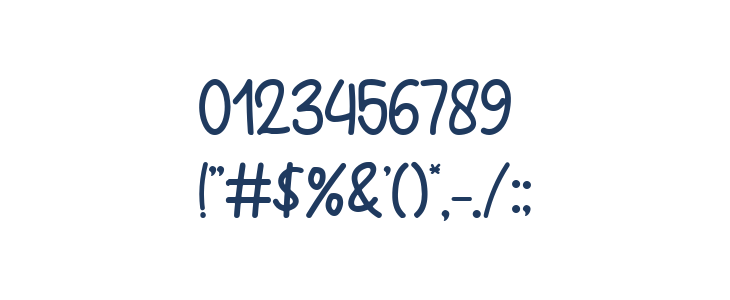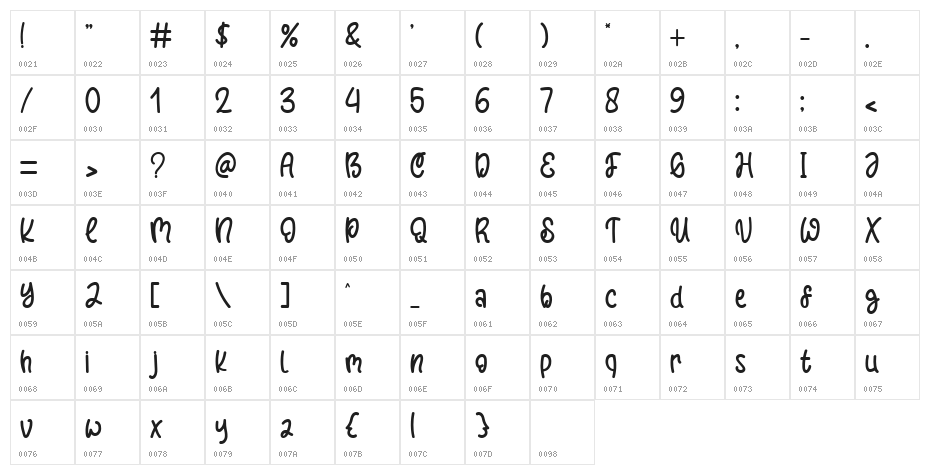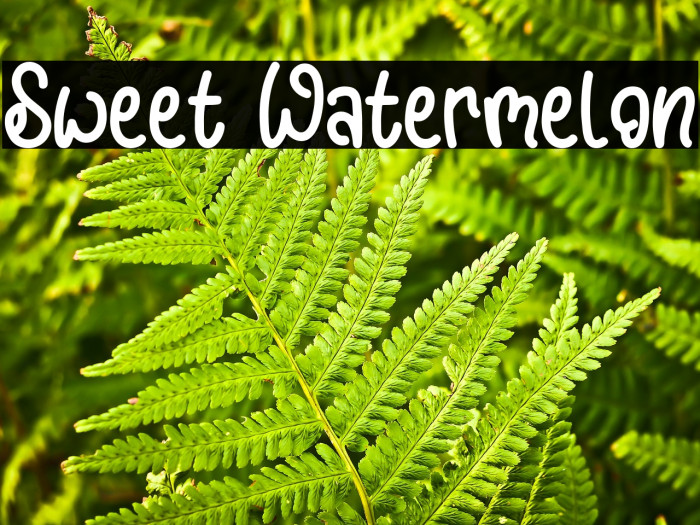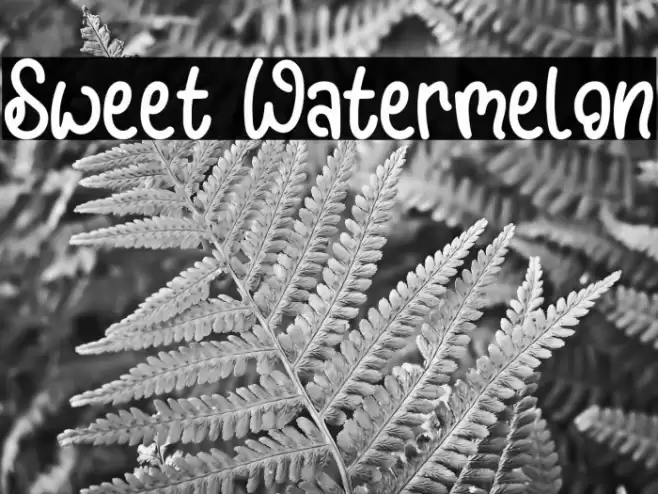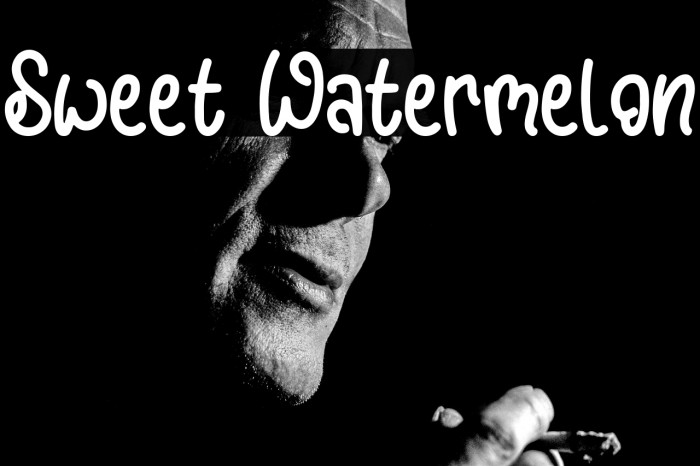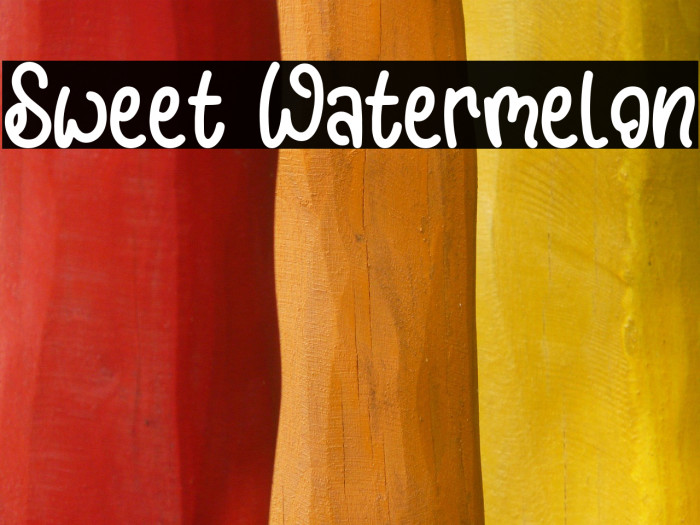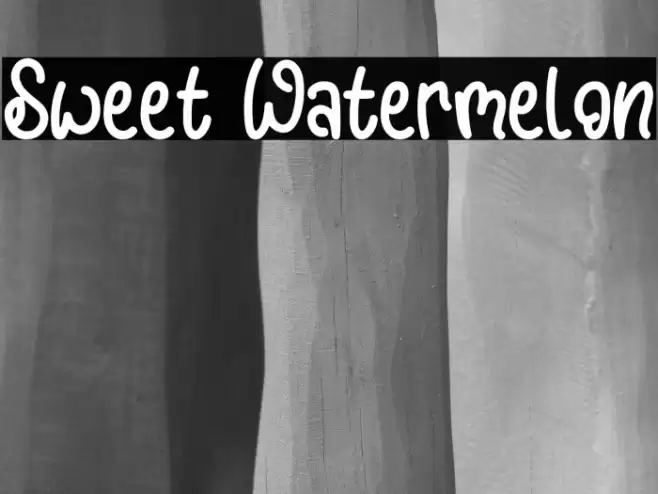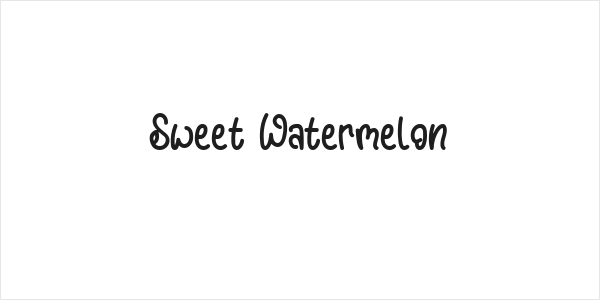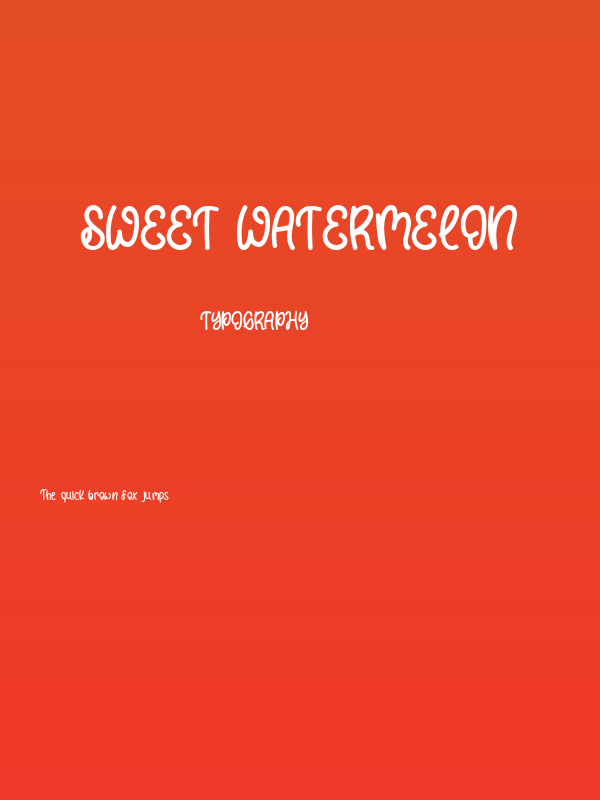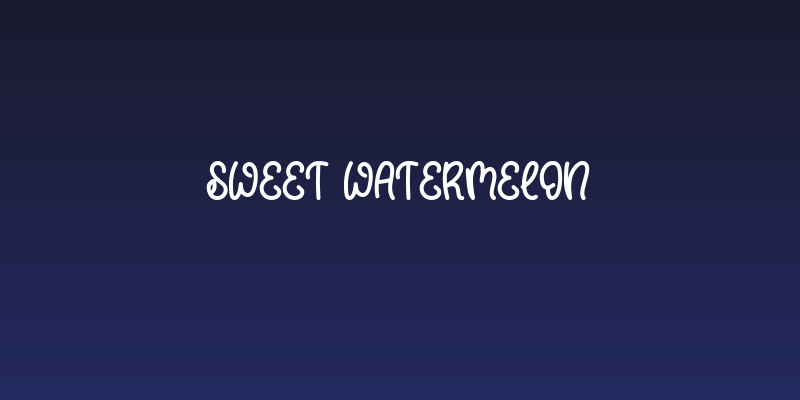
Sweet Watermelon Font
Sweet Watermelon Description
This playful and whimsical font features a handwritten style with a casual, friendly appearance. The letters are rounded and slightly irregular, giving it a natural and organic feel. The strokes are consistent in weight, providing a uniform look across all characters. The uppercase and lowercase letters maintain a cohesive style, with a slight slant that adds to the informal charm. The numbers and special characters are designed to match the overall aesthetic, making this font versatile for various creative projects.
| Proposed Projects | Ideal for greeting cards, children's books, playful branding, and social media graphics. |